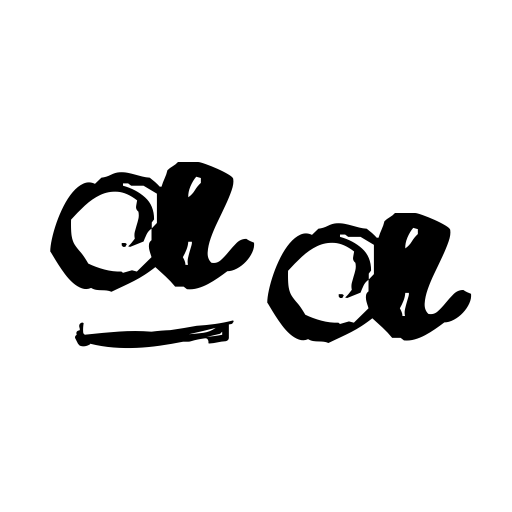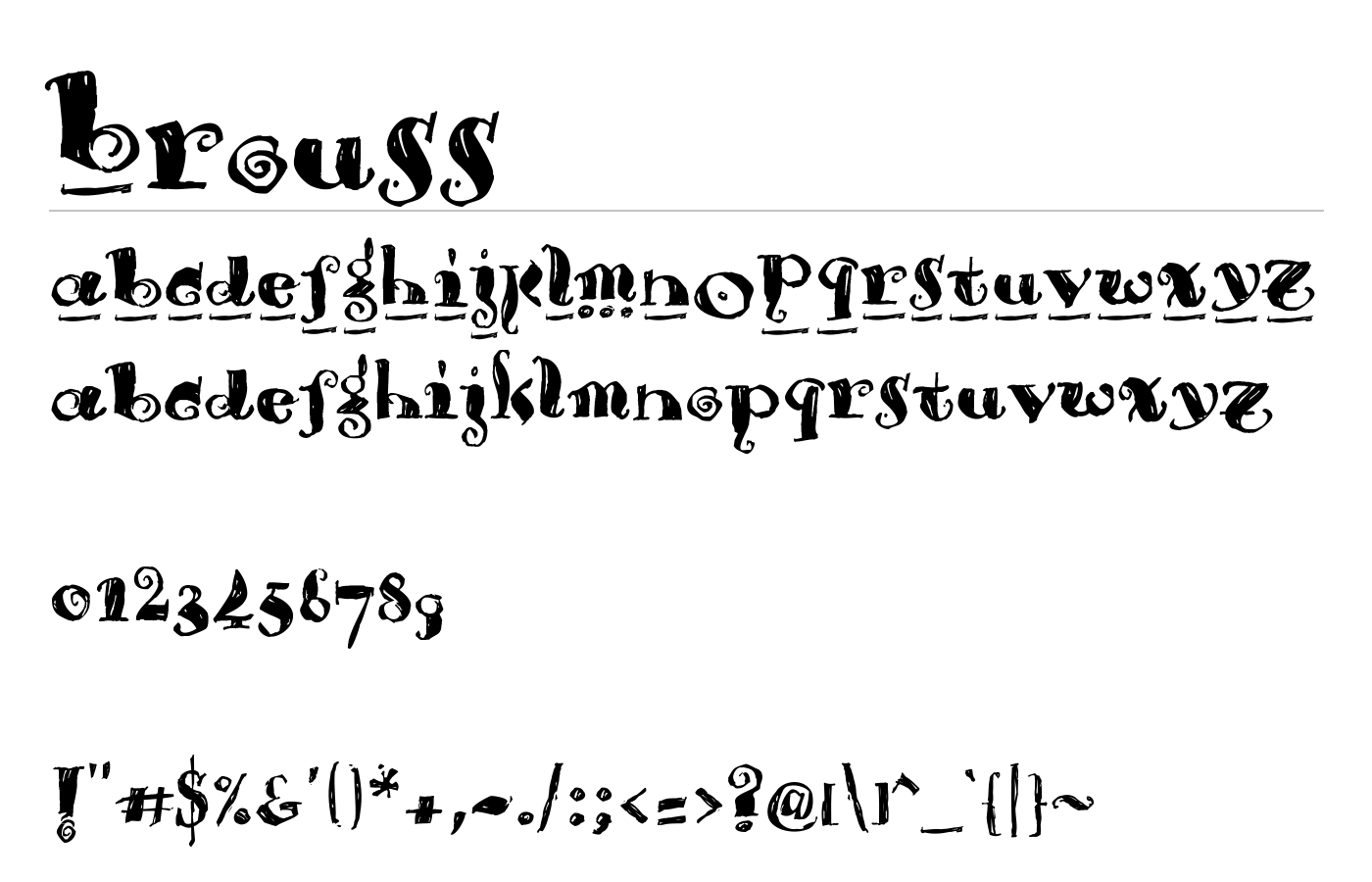
Brouss is an artistic and whimsical serif font featuring playful, bold letterforms with distinctive flourishes and irregular shapes that give it a hand-crafted, almost gothic feel. Its quirky strokes and uneven lines make it perfect for creative projects seeking a vintage, dramatic, or fantasy-inspired look, ideal for posters, logos, and themed branding where personality and uniqueness are key.
Brouss Font